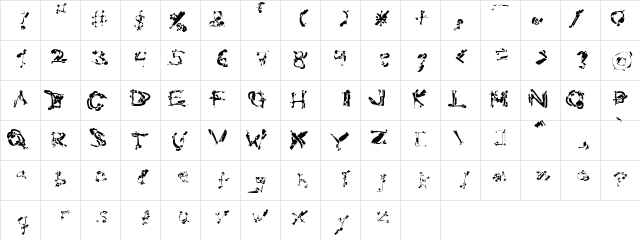
Eat your face with a spoon Regular
Design Context for Eat your face with a spoon Typeface
Eat your face with a spoon is a composed and adaptable typeface that performs quietly and consistently across a wide range of design contexts.